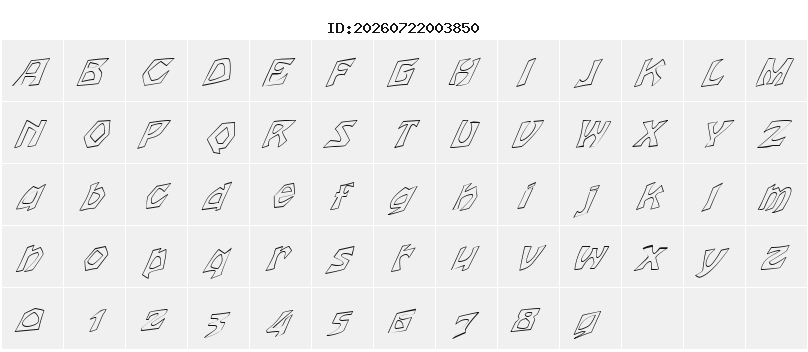
FZ JAZZY 12 HOLLOW ITALIC Preview
• Font Name: FZ JAZZY 12 HOLLOW ITALIC
• Full Font Name: FZ JAZZY 12 HOLLOW ITALIC
About FZ JAZZY 12 HOLLOW ITALIC.ttf
FZ JAZZY 12 HOLLOW ITALIC.ttf is a modern, elegant sans-serif font designed for ultimate readability and visual harmony. Perfect for branding, headlines, web design, and print materials.